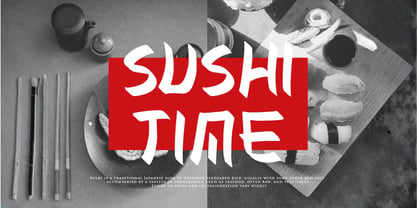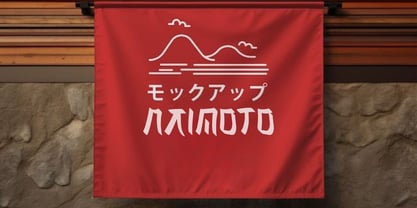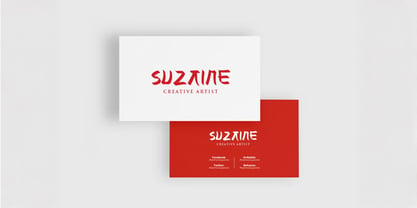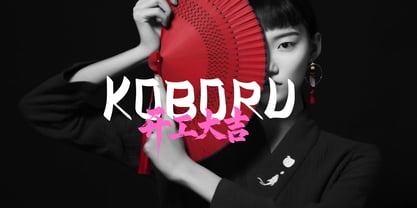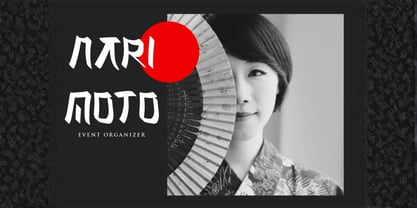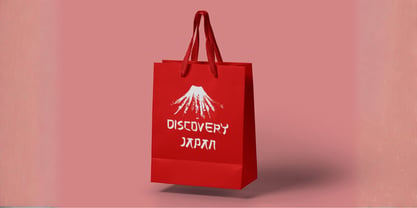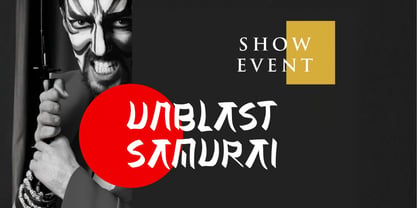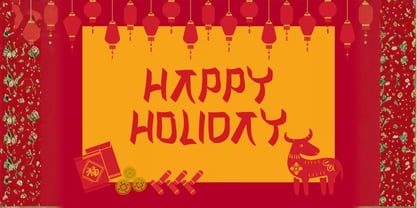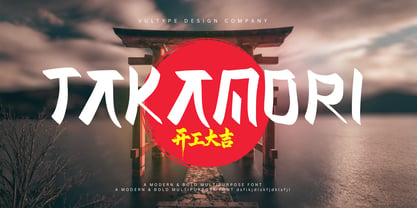
Takamori
The Takamori Font Family was designed by Candra Hamdani and published by Vultype Co. Takamori contains 2 styles and family package options. More about this family
Takamori is a modern Japanese-style display font inspired by brush strokes, kanji shapes, and traditional Japanese calligraphy. Designed to bring an authentic and artistic touch, Takamori delivers a bold, exotic, and elegant character—perfect for branding, logos, packaging, posters, merchandise, Japanese restaurants, Asian food brands, and creative projects with samurai, anime, or Japan-inspired themes. With its strong yet expressive letterforms, Takamori blends the essence of brush calligraphy with a contemporary display aesthetic. Every curve and stroke is crafted to evoke a sense of mystery, strength, and refined cultural flair.